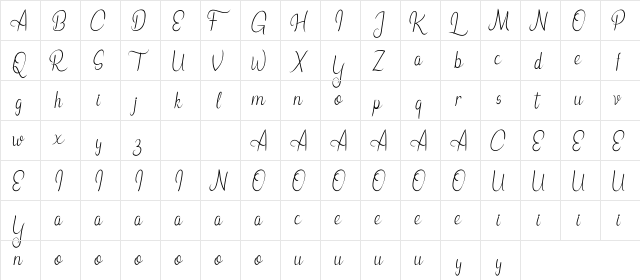
Leonita DEMO Italic
| Foundry | edric studio |
| Designer | Aghnia |
Design Context for Leonita DEMO Typeface
Leonita DEMO is a composed and adaptable typeface that performs quietly and consistently across a wide range of design contexts. Its italic angle brings a sense of urgency and motion to the letterforms.